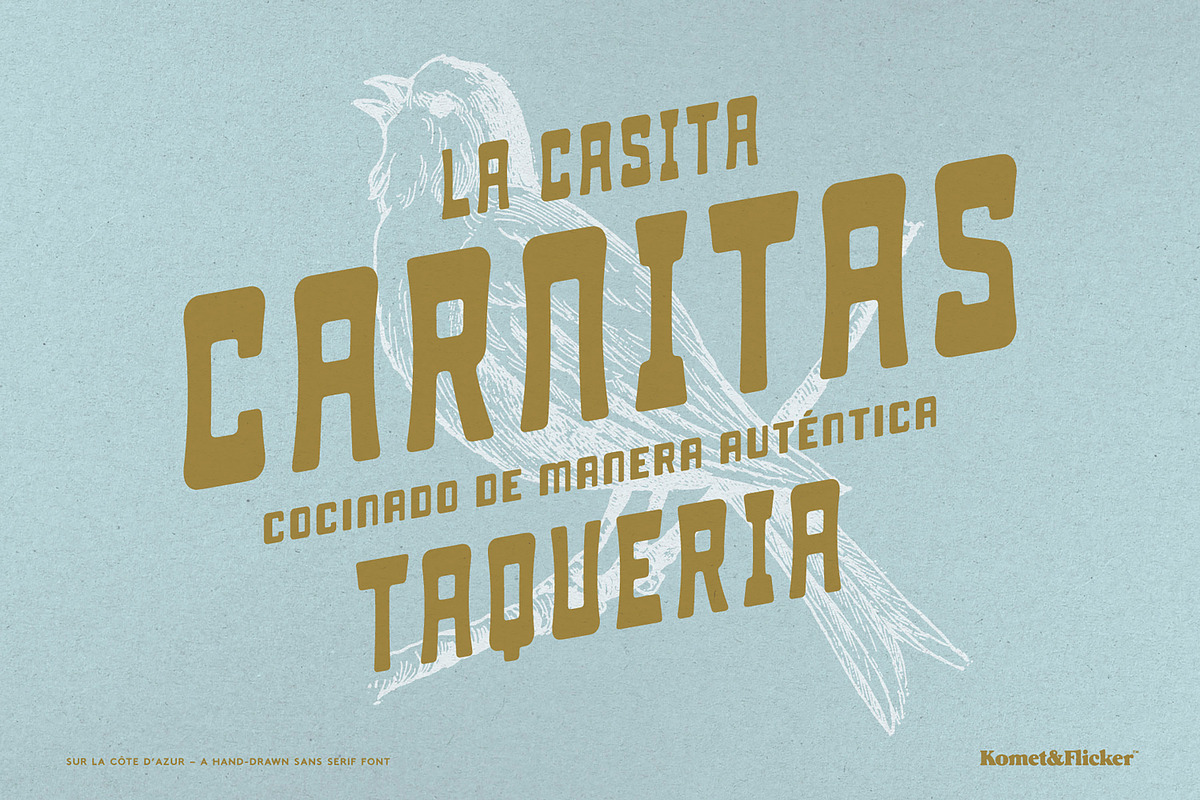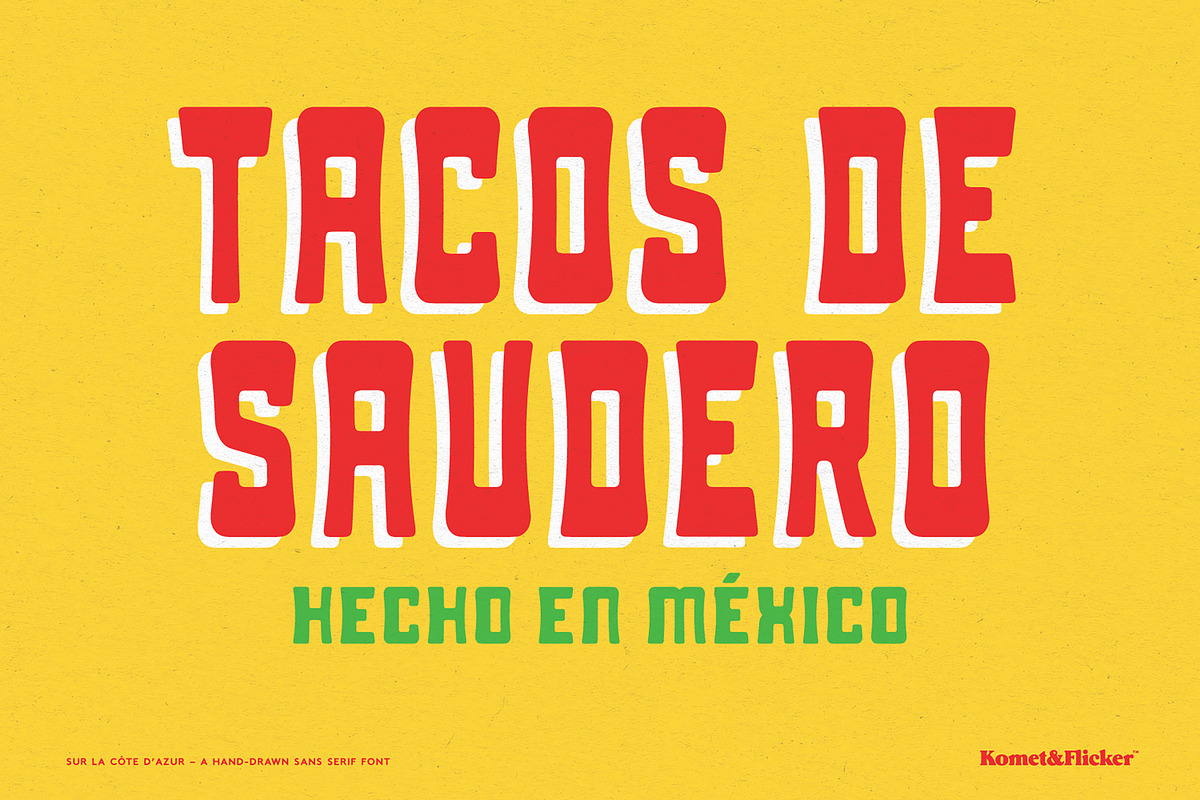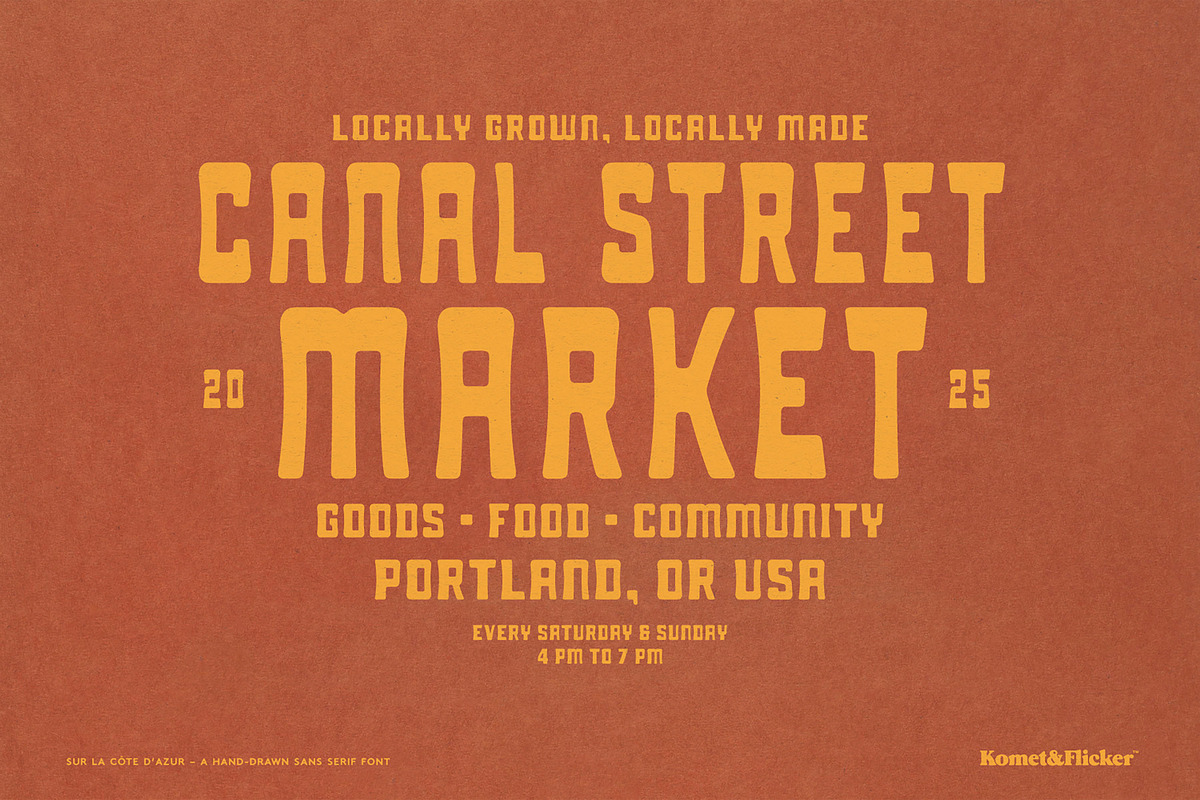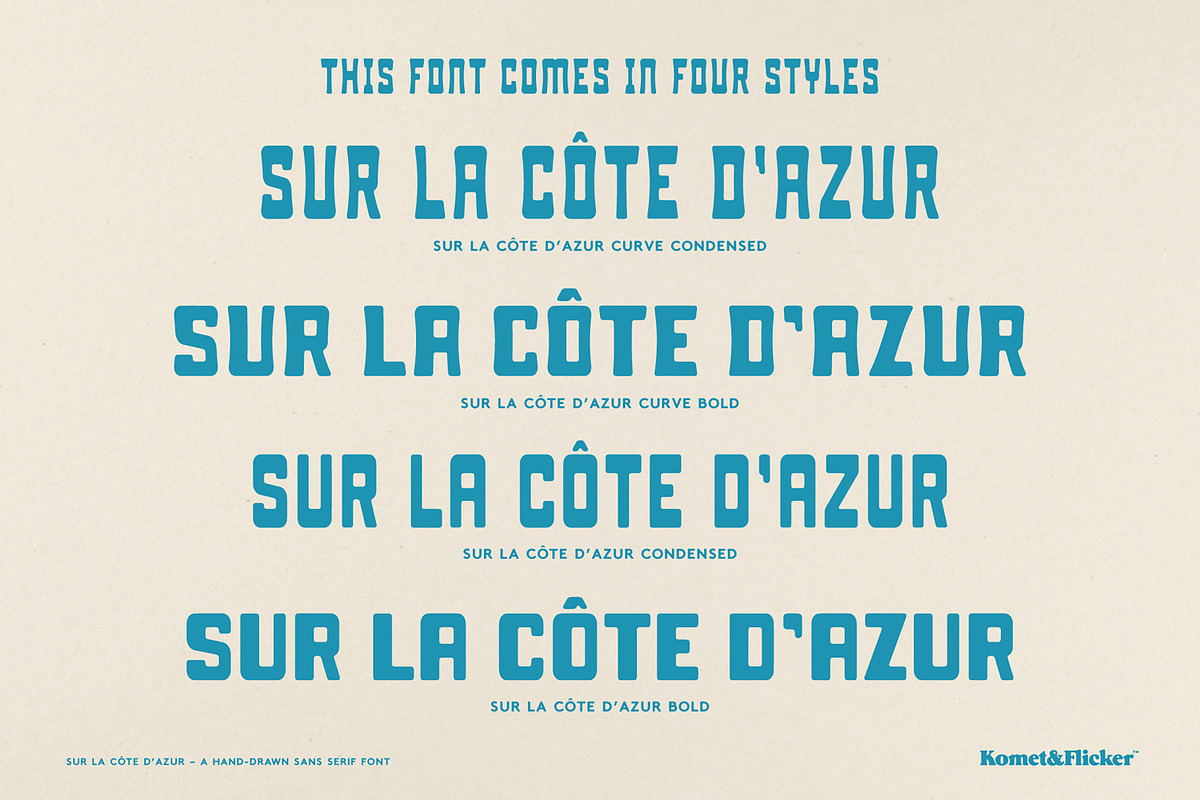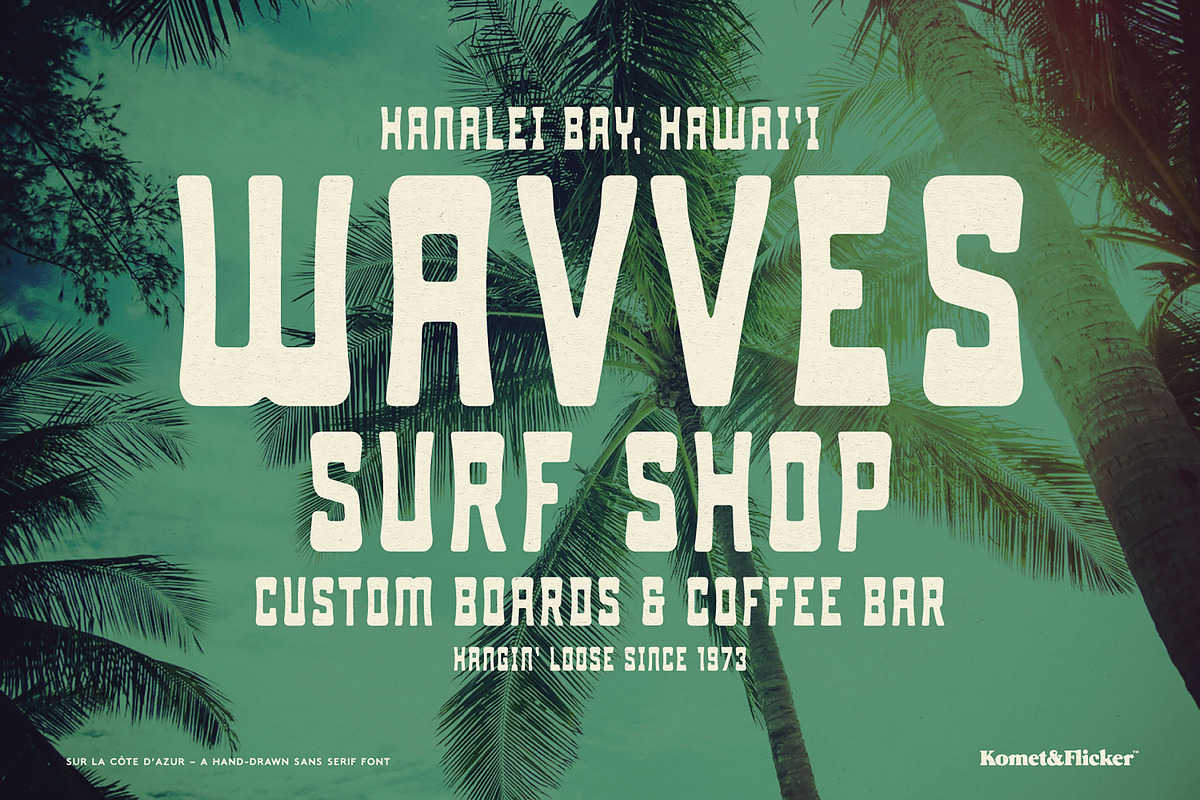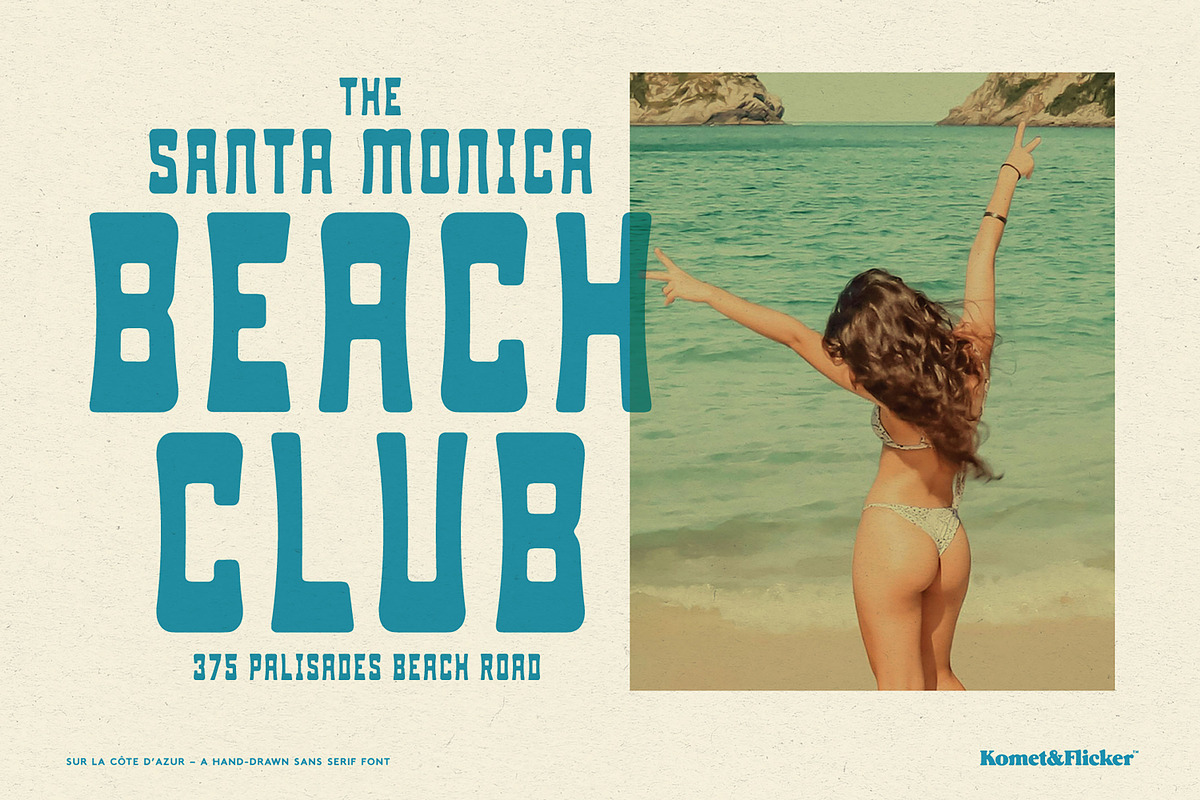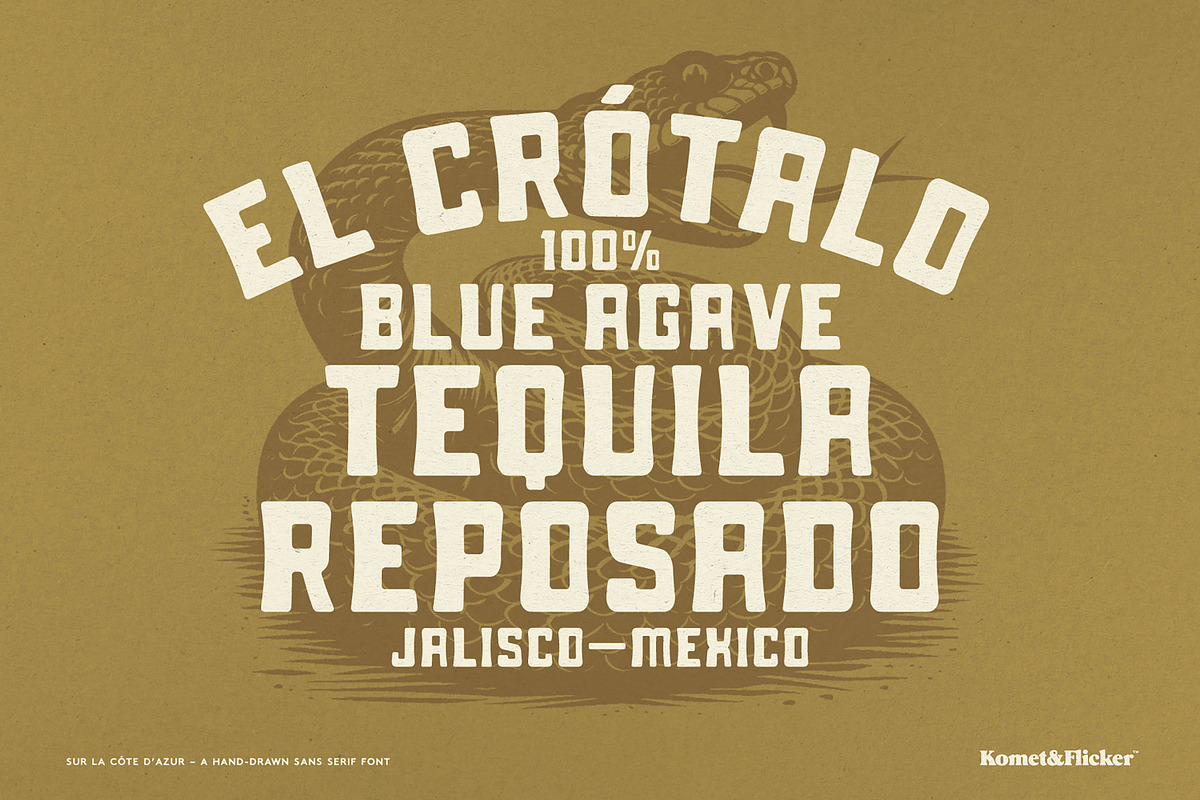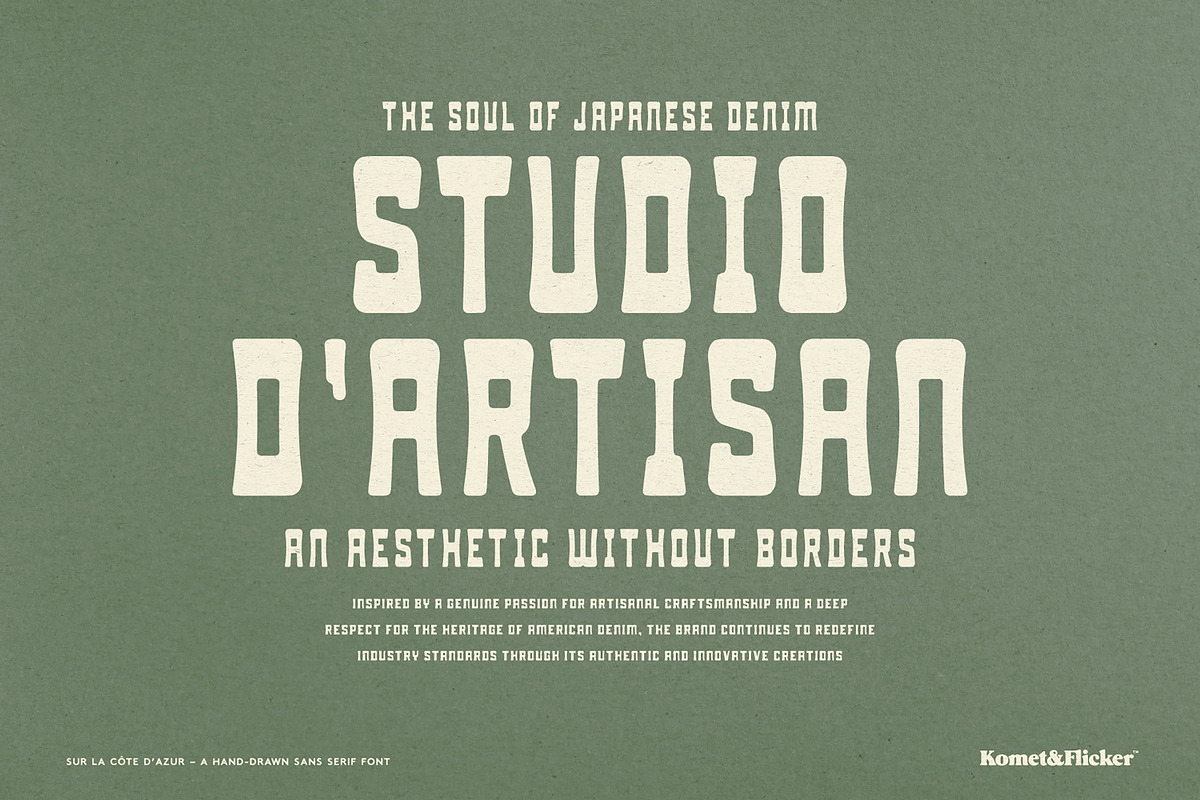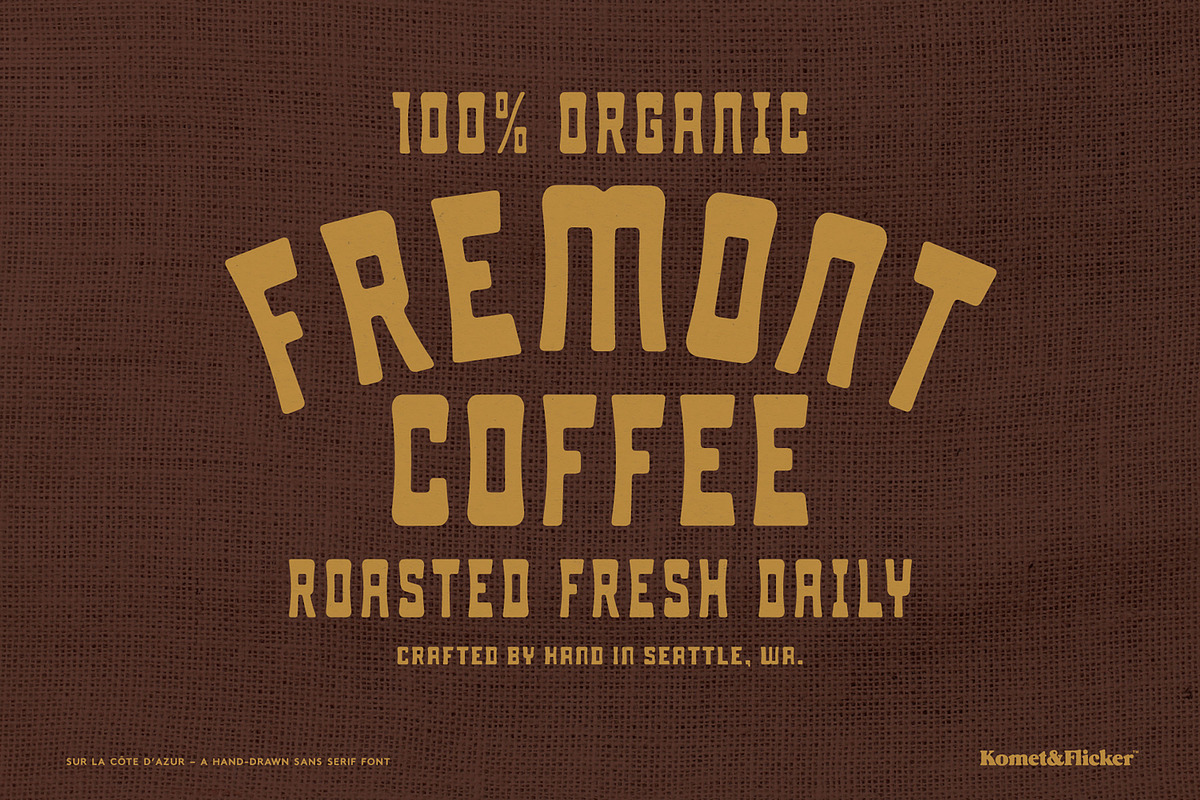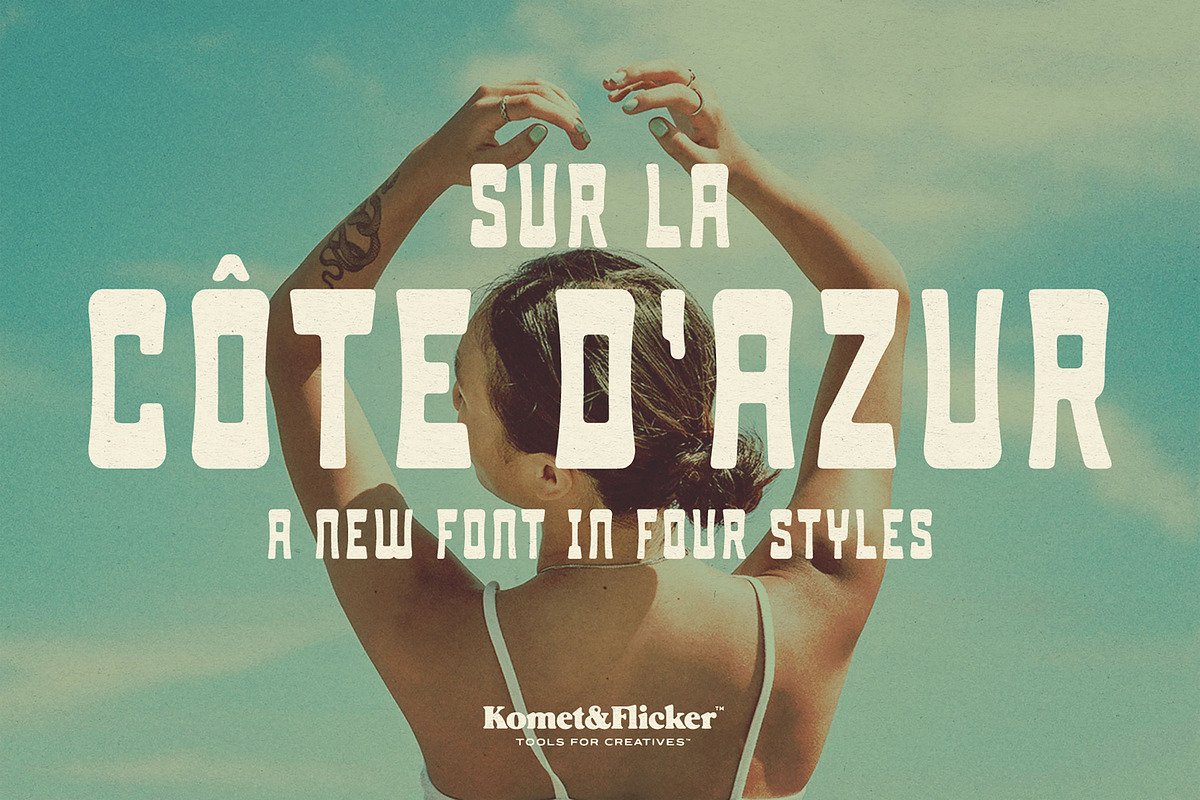
Sur La Cote d'Azur
A sun-soaked typeface with a funky retro soul!
Inspired by the breezy glamour of the French Riviera and the playful spirit of the 1970s, Sur La Côte d’Azur brings bold curves, groovy letterforms, and a dash of seaside charm to your designs. It’s the perfect font for posters, packaging, album art, and branding that wants to radiate warmth, personality, and a little bit of vintage mischief.
Available in four stylish variations, this type family lets you mix, match, and layer your way to the perfect retro vibe. Turn up the color, cue the disco beats, and let Sur La Côte d’Azur transport your typography straight to the sun-drenched coast.